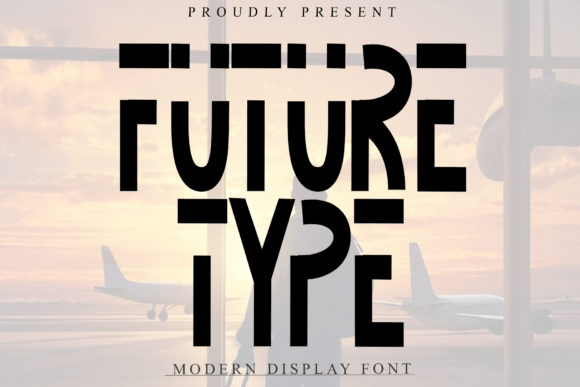
Future Type: A Display Font That Makes Your Headlines Unmissable
It’s 9:47 a.m., and I’m squinting at a YouTube thumbnail on my phone—halfway zoomed in, scrolling fast. The background is vibrant, the product shot crisp, but the headline? It’s blending in. Too safe. Too familiar. That’s when I open my font library and drag in Future Type.
This isn’t just another geometric sans. Future Type is a display font built for moments like this: when your message has one second to land, and zero room for visual noise. Its stenciled cut-outs give it texture without clutter; its unexpected curves soften rigidity without sacrificing impact. It feels engineered—not for nostalgia, but for now.
I used it last week across a six-piece Instagram Reels campaign for a sustainable apparel launch. Not for body copy. Not for captions. But for every single cover frame, every product teaser title, and the bold “DROP DATE” lock screen graphic we pinned to Stories. Why? Because Future Type doesn’t ask to be read—it demands to be recognized. And in a feed where attention fractures before the first syllable registers, that distinction matters.
It thrives where clarity meets contrast. On dark-mode Pinterest pins? Yes—its sharp inner counters pop against deep navy or charcoal. Over busy product photography? Absolutely—the stencil breaks up density while keeping letterforms legible. Even on small email banners (yes, even at 28px on mobile), its generous x-height and open apertures hold up better than most display fonts I’ve tested.
That said: Future Type isn’t meant for paragraphs. It’s not a workhorse text face. It’s a spotlight. Use it for:
- YouTube thumbnail headlines (especially with tight vertical space)
- Instagram carousel cover slides and Reels end screens
- Pinterest pin titles with bold, scroll-stopping contrast
- Landing page hero headers paired with clean supporting type
- Digital ad banners where brand recall > subtlety
- Webinar or course launch announcements—think “LEVEL UP” or “OPEN REGISTRATION”
What makes it stick isn’t just aesthetics—it’s intentionality. Each glyph balances geometry and gesture. The uppercase “O” has a subtle inward curve; the “R” features a tapered leg that echoes motion; the “A” opens wide, inviting the eye in. It’s confident without shouting, modern without coldness.
I paired it with Inter for all supporting text—clean, neutral, highly legible at small sizes. That pairing works because Future Type handles presence, while Inter handles precision. No competing personalities. Just hierarchy that breathes.
You can also layer it thoughtfully with a restrained serif (like IBM Plex Serif) for editorial-style promo graphics, or even a delicate handwritten font for contrast in quote-based content—but only if the handwritten style is minimal and well-spaced. Avoid anything ornate or overly connected; Future Type’s strength is its controlled energy, and clutter kills that.
- Weights & alternates: It ships with Bold and Black weights plus stylistic alternates (like a simplified “S” or alternate “G”)—perfect for fine-tuning rhythm in tight spaces like thumbnails or mobile banners.
One real moment that sealed it for me? Designing a set of TikTok cover images for a fintech webinar series. We needed consistency across five sessions—but also distinct visual cues per topic (“Budgeting”, “Investing”, “Debt Freedom”, etc.). Future Type let us keep the same structural rhythm across all covers, while tiny tweaks—like swapping the default “B” for an alternate version with sharper terminals—gave each slide its own pulse. No extra assets. No custom illustration. Just smart typography doing heavy lifting.
And yes—it works on light backgrounds too. With proper tracking (I usually loosen it by 20–30 units for display sizes) and enough contrast, Future Type holds its own over white or pastel gradients. Just avoid ultra-thin strokes on low-res screens; stick to Bold or Black for anything under 48px.
It’s not about being “trendy.” It’s about being functional—a display font that solves real visibility problems in real workflows. Whether you’re prepping a Black Friday email banner, building a branded content series for LinkedIn, or designing a set of YouTube Shorts thumbnails, Future Type gives you a consistent, ownable voice without needing custom lettering.
Typography isn’t decoration. It’s decision-making made visible. And when your campaign lives in milliseconds—not minutes—choosing a display font like Future Type means choosing clarity over cleverness, recognition over repetition, and confidence over compromise.